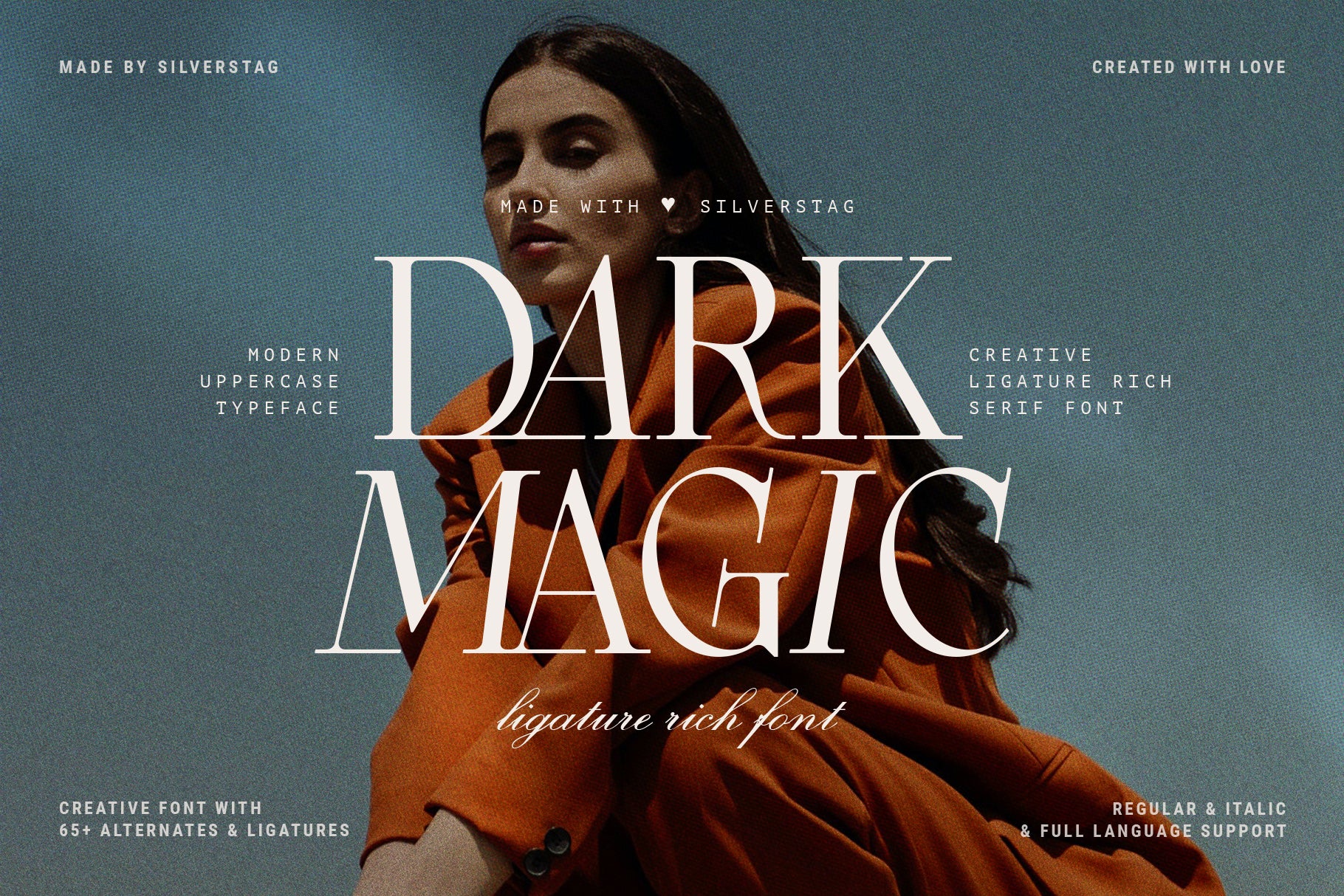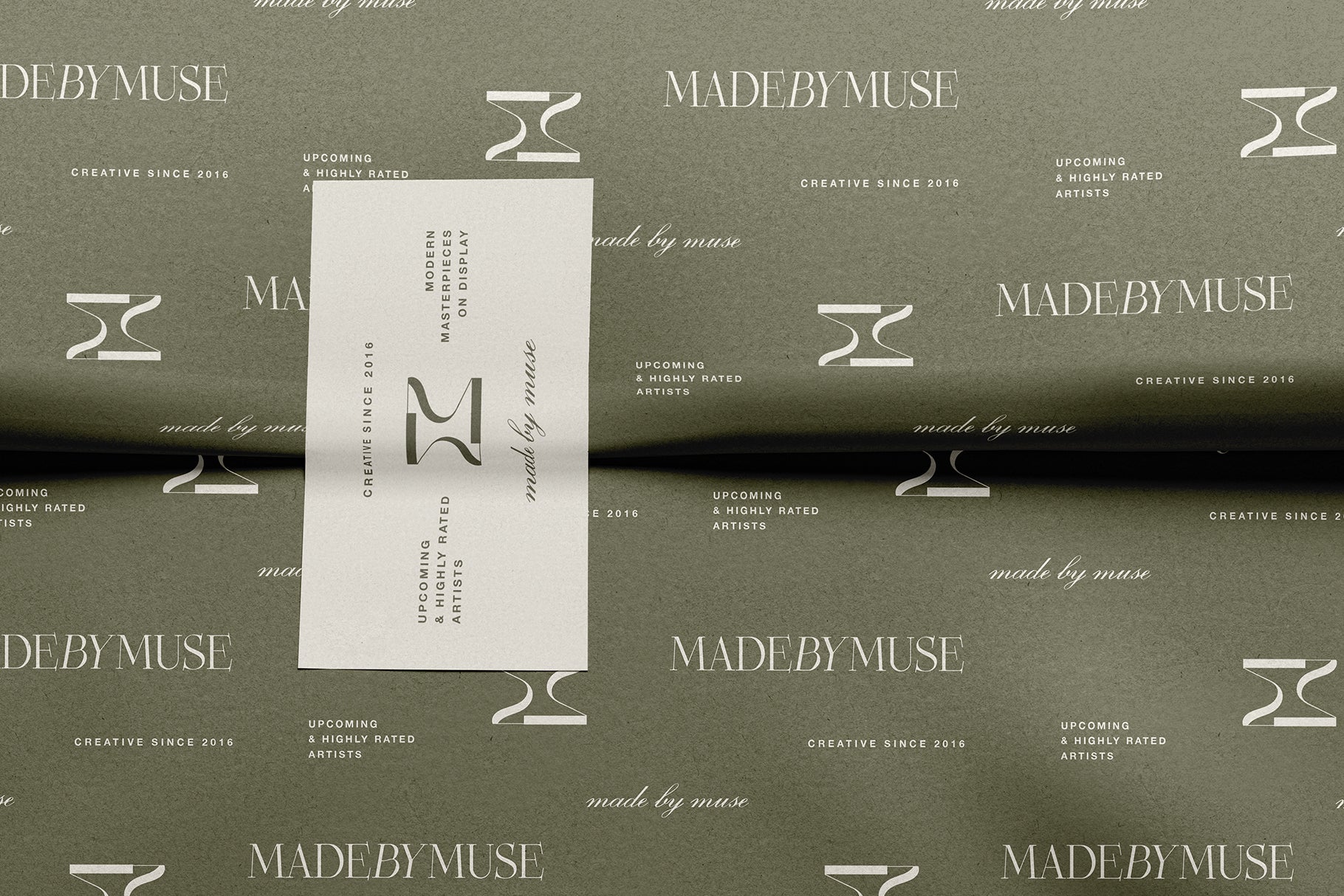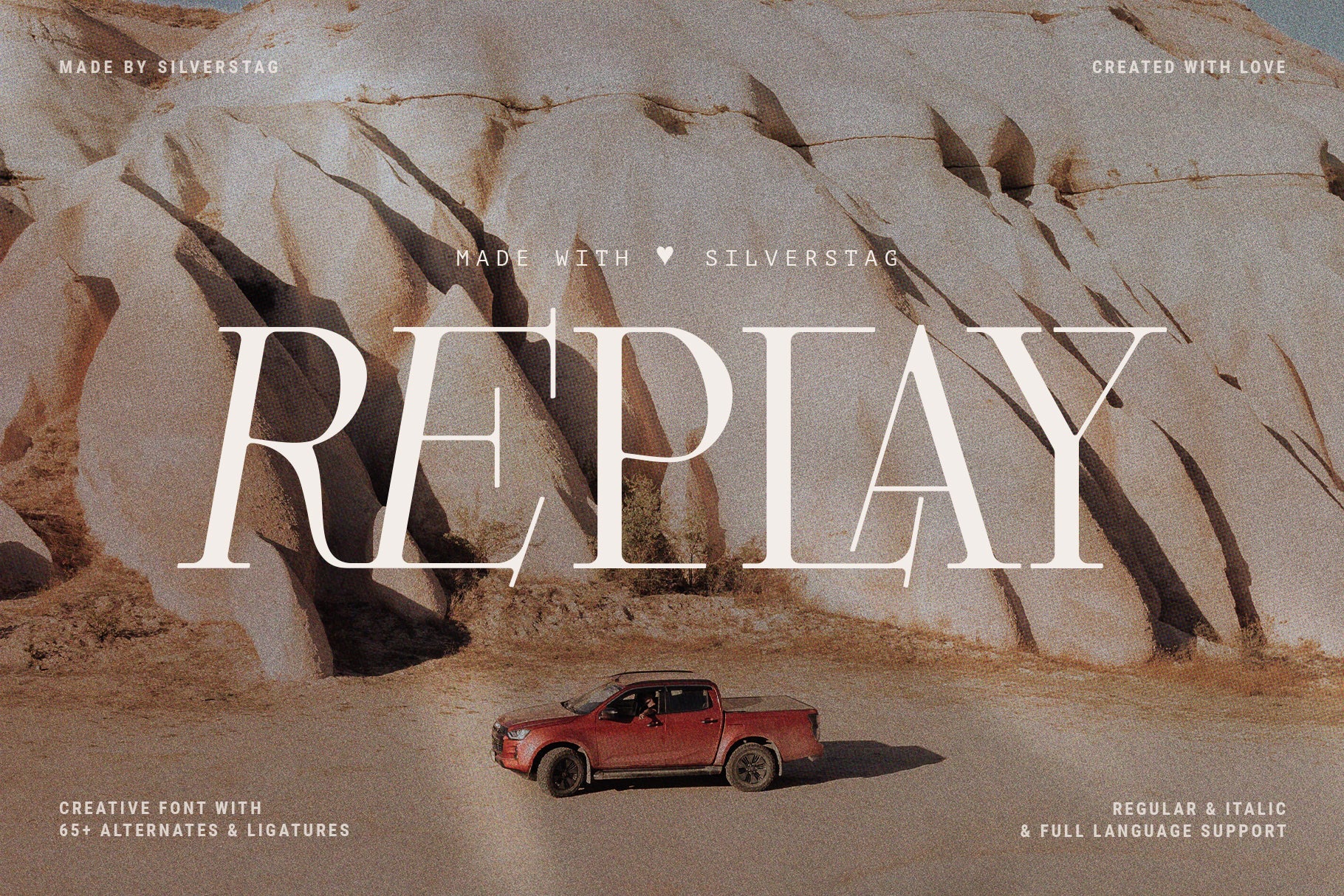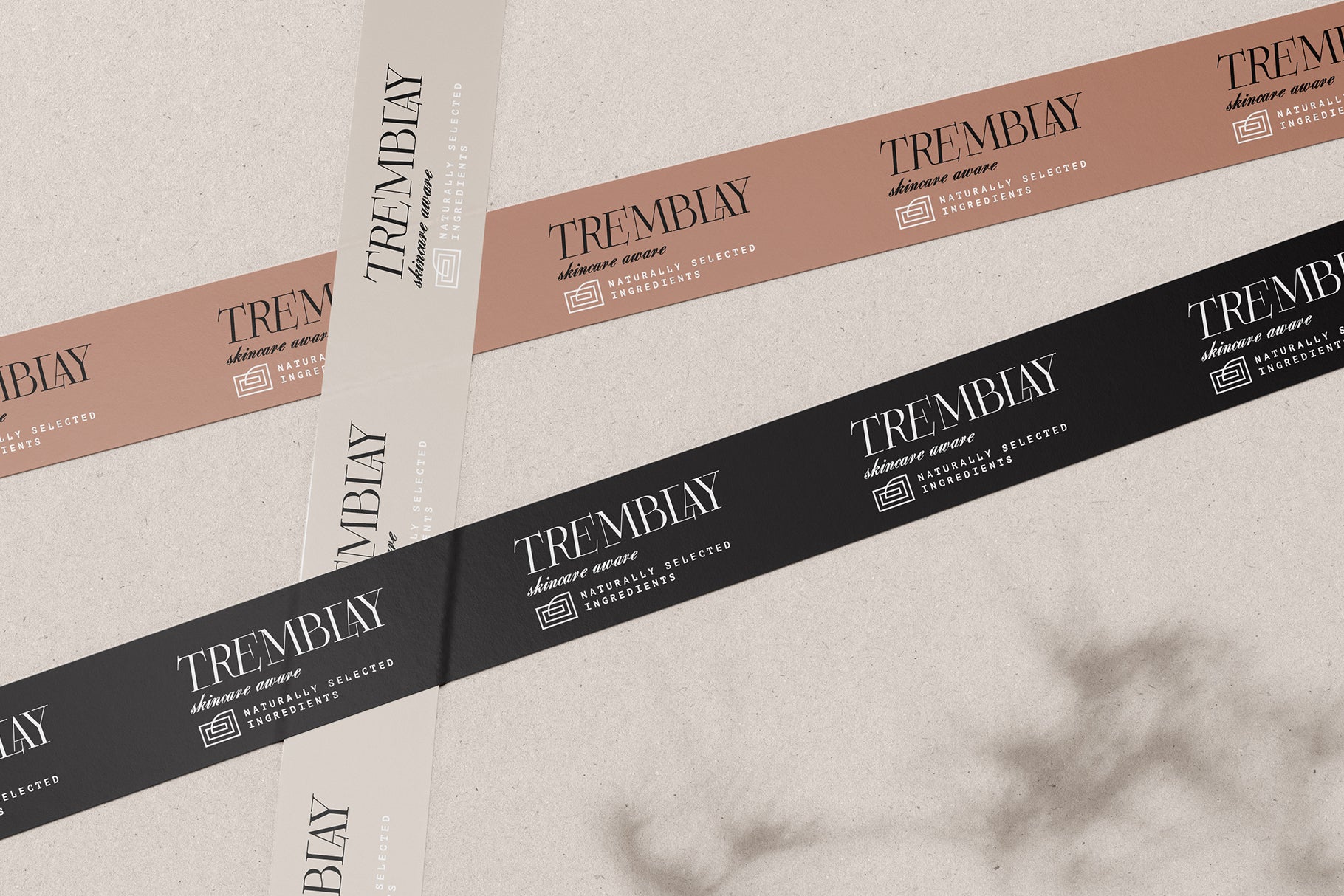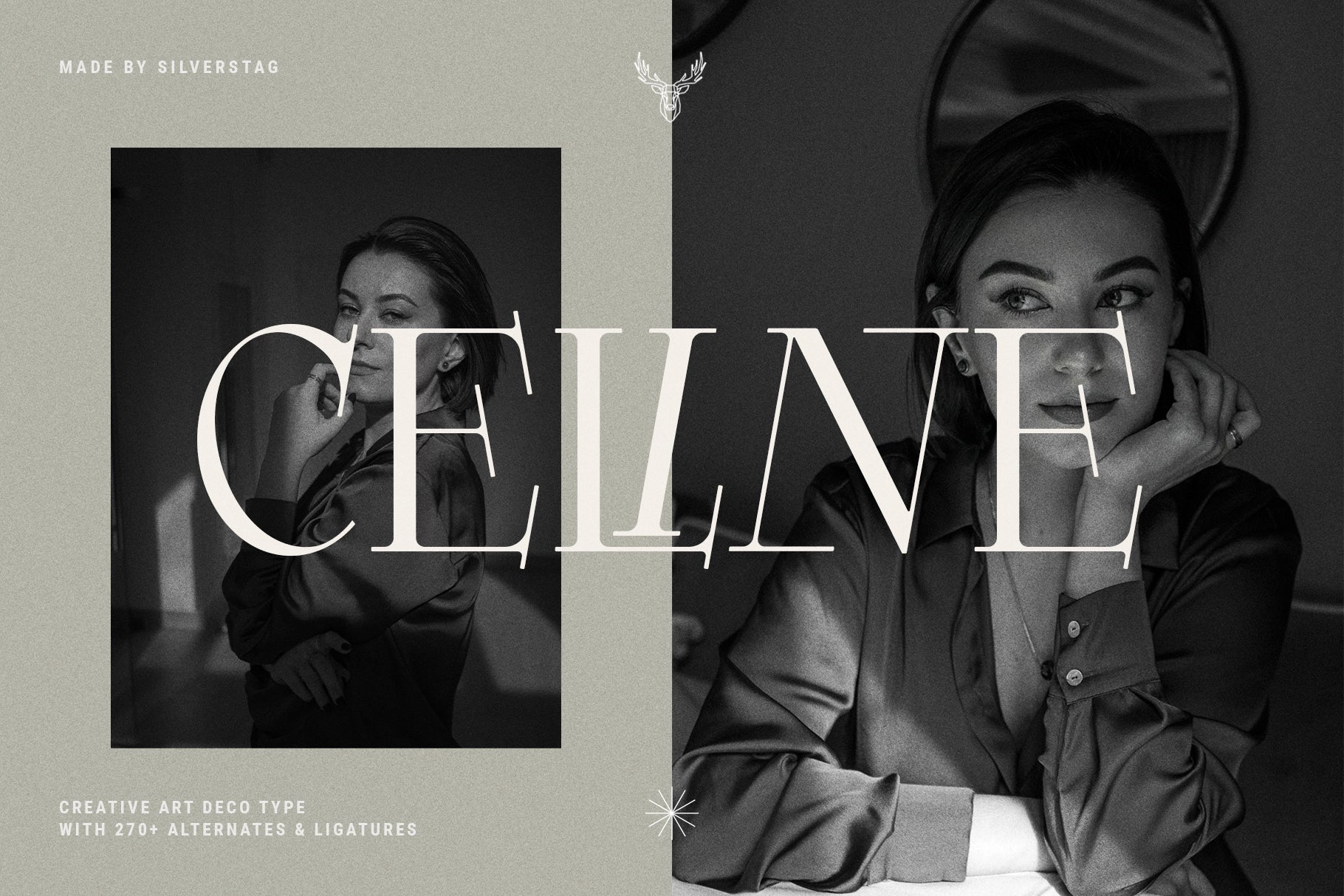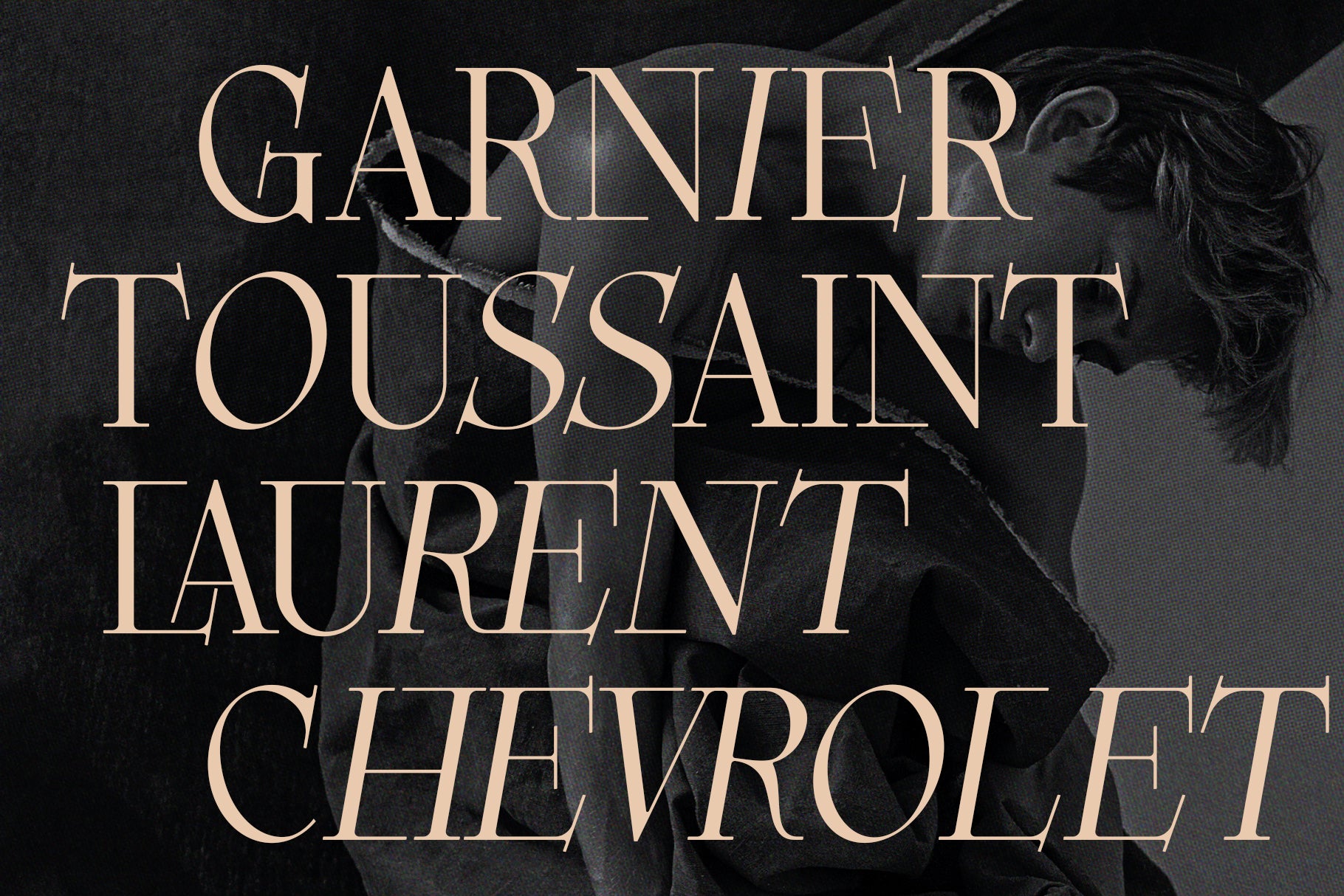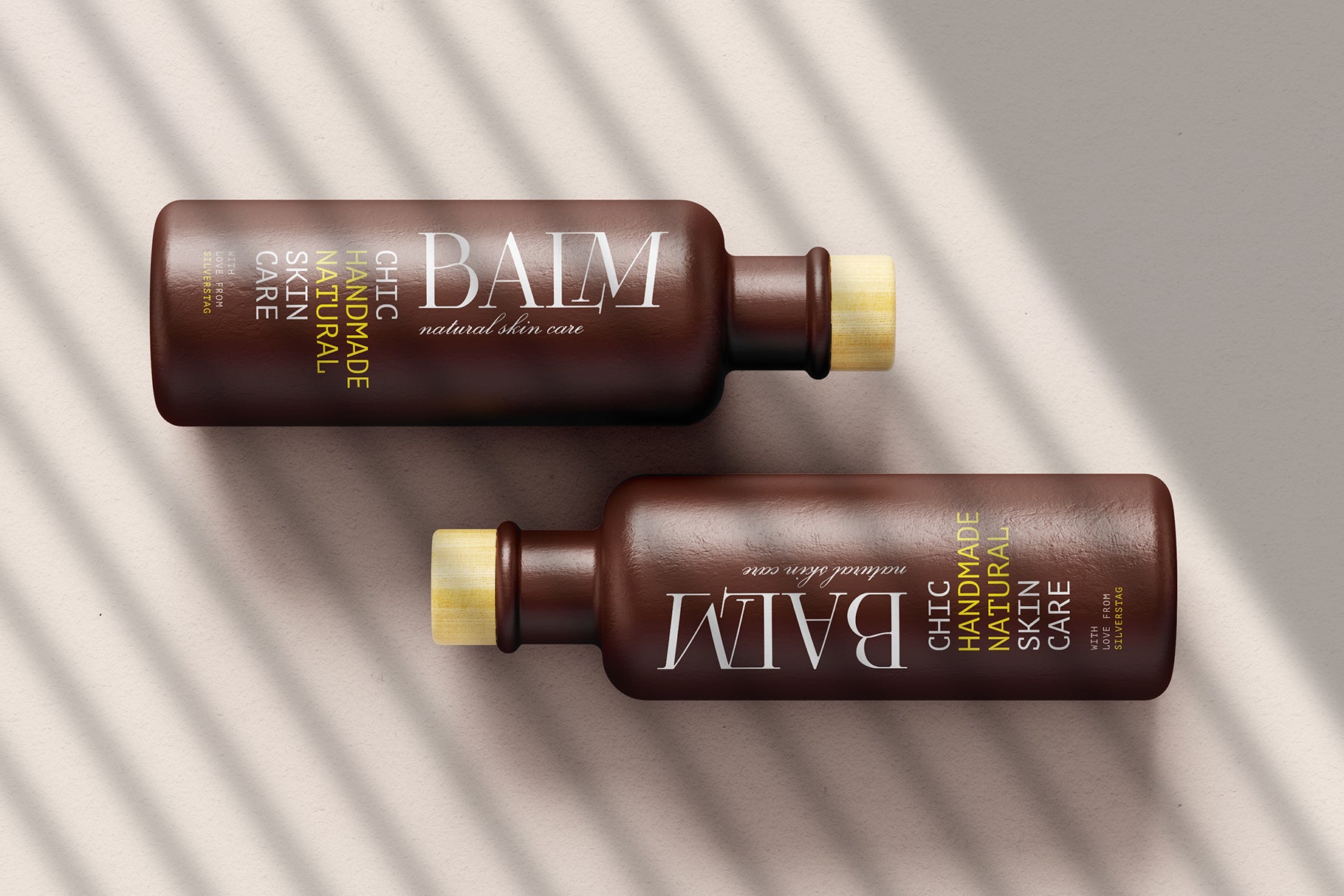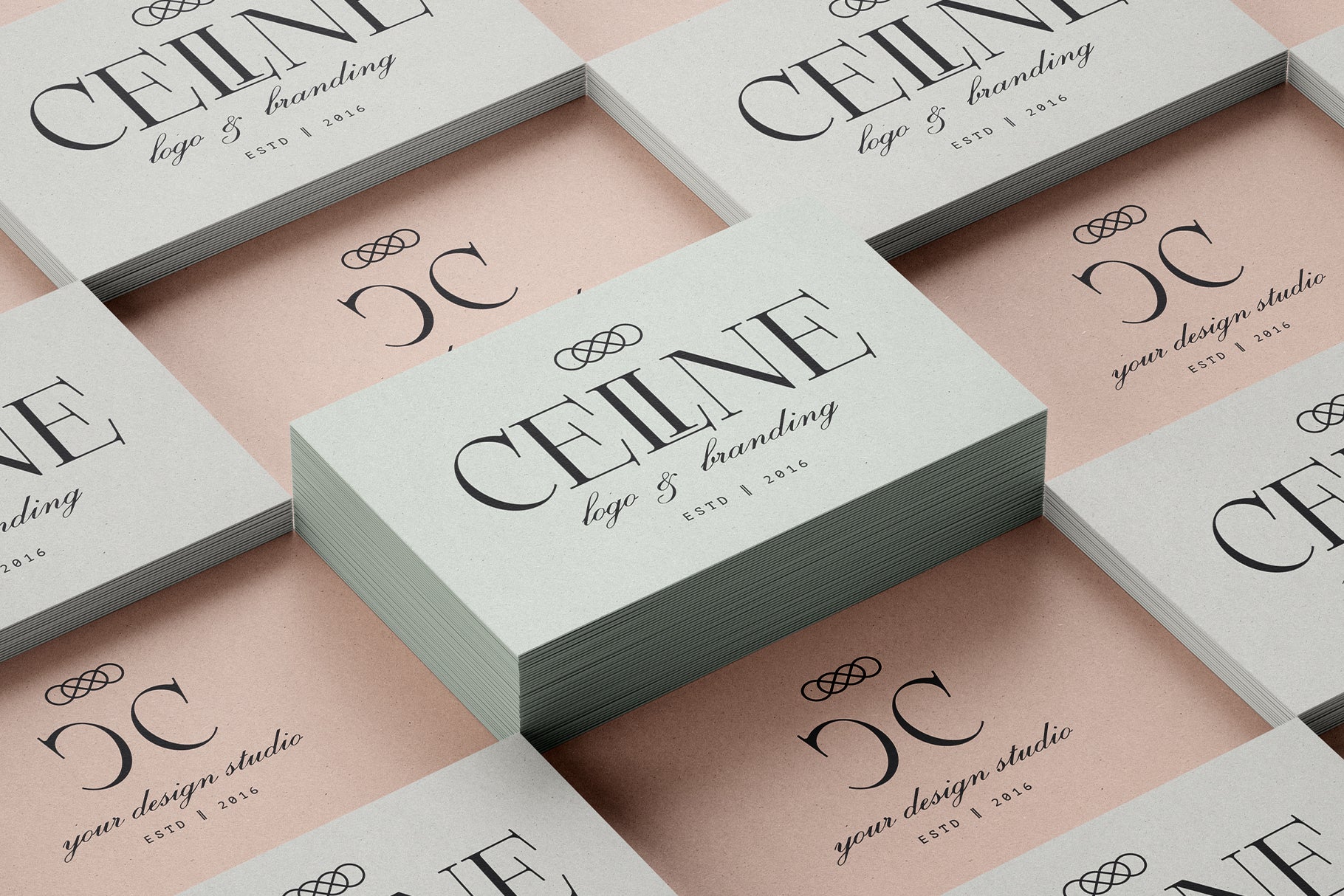
• Dark Magic ligature serif hero in white over teal with a woman in a rust outfit looking over her shoulder
• Dark Magic serif spelling REPLAY in white over a desert canyon landscape with a red pickup truck parked below
• Dark Magic serif Made by Muse stationery mockup in sage green with an M monogram business card
• Dark Magic serif on Tremblay skincare branding with crossed blush and black ribbons on a light surface
• Dark Magic Art Deco serif spelling Celine over two black and white portraits of women on sage green
• Dark Magic serif glyph showcase stacking Garnier Toussaint Laurent Chevrolet over a dark moody photo
• Dark Magic serif on Balm natural skin care bottles - two brown frosted bottles under diagonal shadow stripes
• Dark Magic serif Celine logo and branding business cards scattered in blush and cream with a CC monogram
• Dark Magic serif on two kraft Chloe hang tags with twine reading sustainable lovely fabrics
• Dark Magic serif Made by Muse poster over a geometric multicolour architectural collage with stairs
Dark Magic - Modern Ligature Serif Font
Dark Magic is a sophisticated serif ligature font designed for modern creatives who want to bring elegance, mystery, and artistry into their work. Featuring a unique combination of uppercase regulars and lowercase italics, this font lets you mix styles effortlessly—and both styles come packed with chic ligatures and alternate letters for custom, expressive typography.
Ideal for branding, social media content, wedding stationery, invitations, moodboards, packaging, and more, Dark Magic gives your designs a polished, editorial feel with a magical twist. Every character has been thoughtfully crafted to create beautiful visual rhythm, while remaining legible and versatile across applications.
Why You’ll Love It:
• 2 Styles in 1 – Regular uppercase and italic lowercase for seamless mixing
• Stylish Ligatures & Alternates – Over 100 creative glyphs to elevate your typography
• Elegant & Versatile – Perfect for both bold logos and romantic stationery
• Multilingual Support – Covers 90+ languages
Dark Magic serif Made by Muse stationery mockup in sage green with an M monogram business card
Dark Magic Art Deco serif spelling Celine over two black and white portraits of women on sage green
Dark Magic serif on Balm natural skin care bottles - two brown frosted bottles under diagonal shadow stripes
Dark Magic serif on two kraft Chloe hang tags with twine reading sustainable lovely fabrics
Dark Magic serif spelling REPLAY in white over a desert canyon landscape with a red pickup truck parked below
Dark Magic serif on Tremblay skincare branding with crossed blush and black ribbons on a light surface
Dark Magic serif glyph showcase stacking Garnier Toussaint Laurent Chevrolet over a dark moody photo
Dark Magic serif Celine logo and branding business cards scattered in blush and cream with a CC monogram
Dark Magic serif Made by Muse poster over a geometric multicolour architectural collage with stairs
Dark Magic serif spelling REPLAY in white over a desert canyon landscape with a red pickup truck parked below
Dark Magic serif Made by Muse stationery mockup in sage green with an M monogram business card
Dark Magic serif on Tremblay skincare branding with crossed blush and black ribbons on a light surface
Dark Magic Art Deco serif spelling Celine over two black and white portraits of women on sage green
Dark Magic serif glyph showcase stacking Garnier Toussaint Laurent Chevrolet over a dark moody photo
Dark Magic serif on Balm natural skin care bottles - two brown frosted bottles under diagonal shadow stripes
Dark Magic serif Celine logo and branding business cards scattered in blush and cream with a CC monogram
Dark Magic serif on two kraft Chloe hang tags with twine reading sustainable lovely fabrics
Dark Magic serif Made by Muse poster over a geometric multicolour architectural collage with stairs